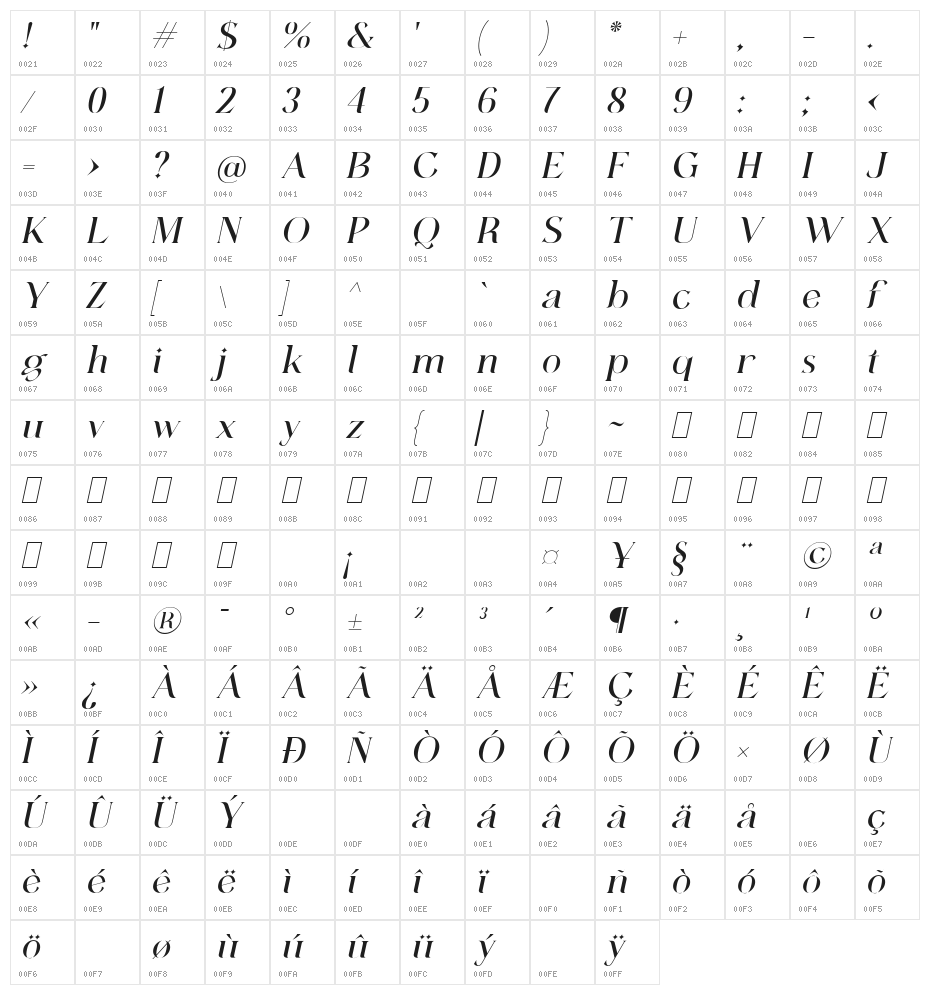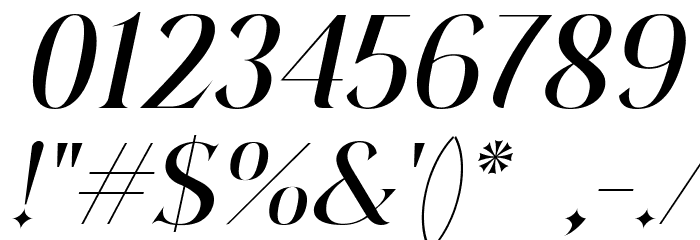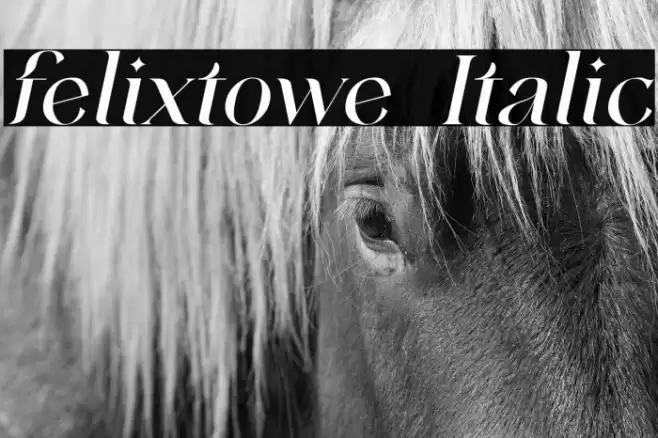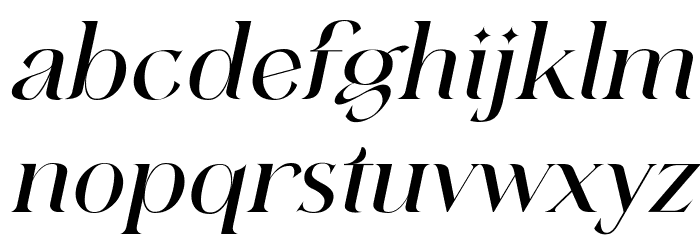
felixtowe Italic Font
felixtowe Italic Description
This font exhibits a sophisticated and elegant style, characterized by its italicized form and smooth, flowing lines. The letters are slightly slanted, giving a sense of motion and grace. The strokes are moderately thick, with a noticeable contrast between thick and thin parts, enhancing its readability and aesthetic appeal. The uppercase letters are tall and commanding, while the lowercase letters maintain a consistent and harmonious flow. Numbers and special characters are designed to match the overall style, ensuring a cohesive look across all text elements.
| Overall Style | Classic |
| Use Case | Headlines, Logos, Invitations |
| Proposed Projects | Ideal for wedding invitations, luxury branding, editorial design, and elegant packaging. |